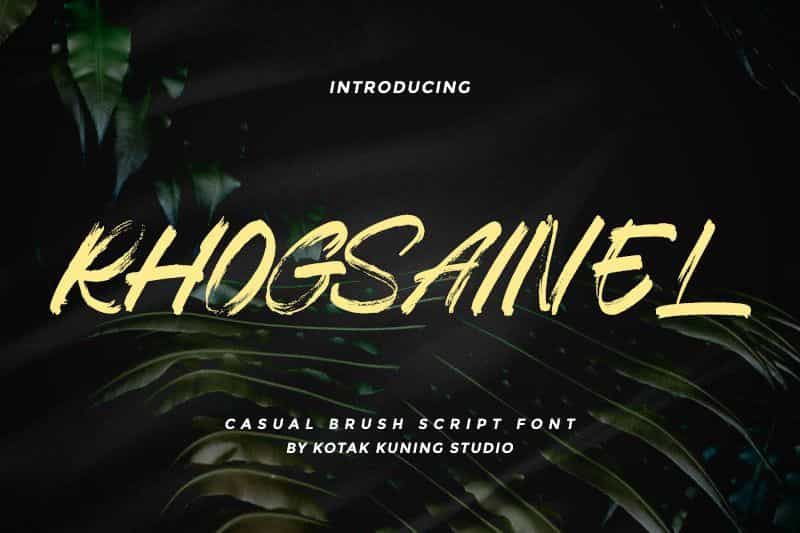
Discover Rhogsainel Brush Font, part of the Brush collection—a versatile and unique font perfect for adding a personal touch to your projects. Download it for free and enjoy crafting designs with style, from invitations to social media posts. This font is available exclusively for personal use, giving you the freedom to create without limits. Unlock your creativity with Rhogsainel Brush Font today!